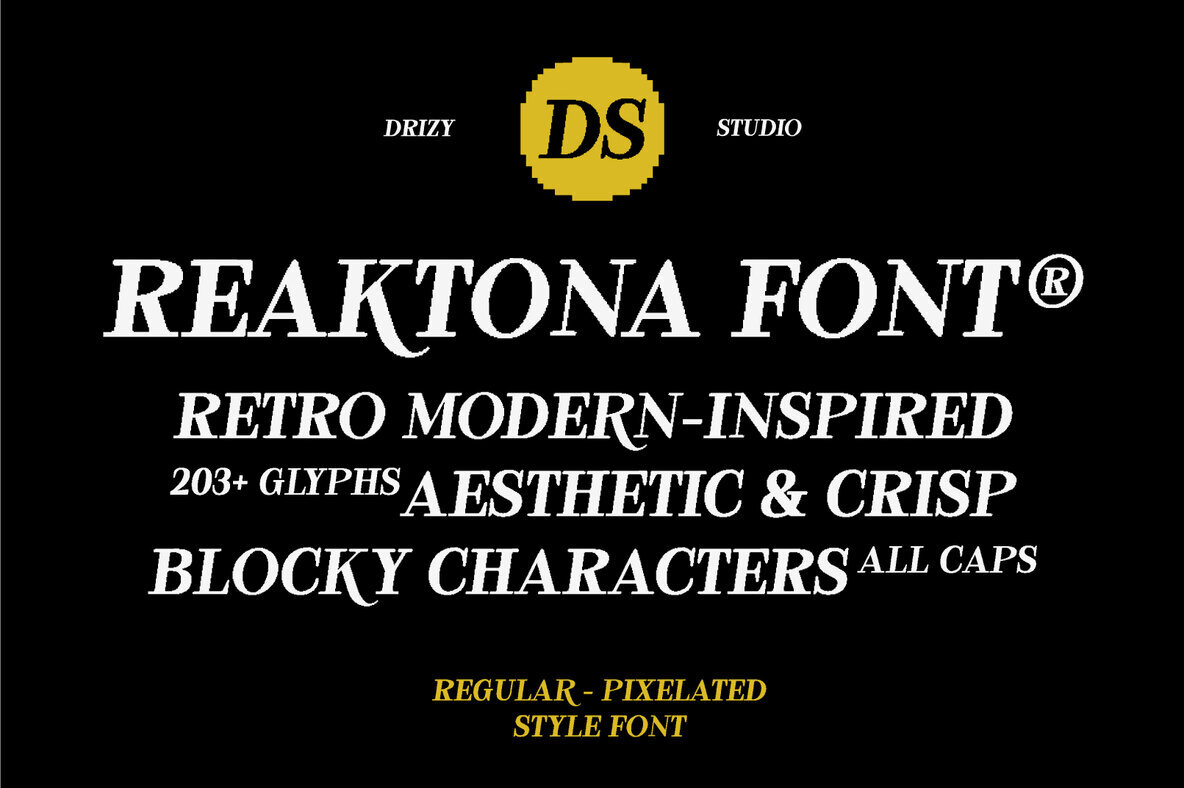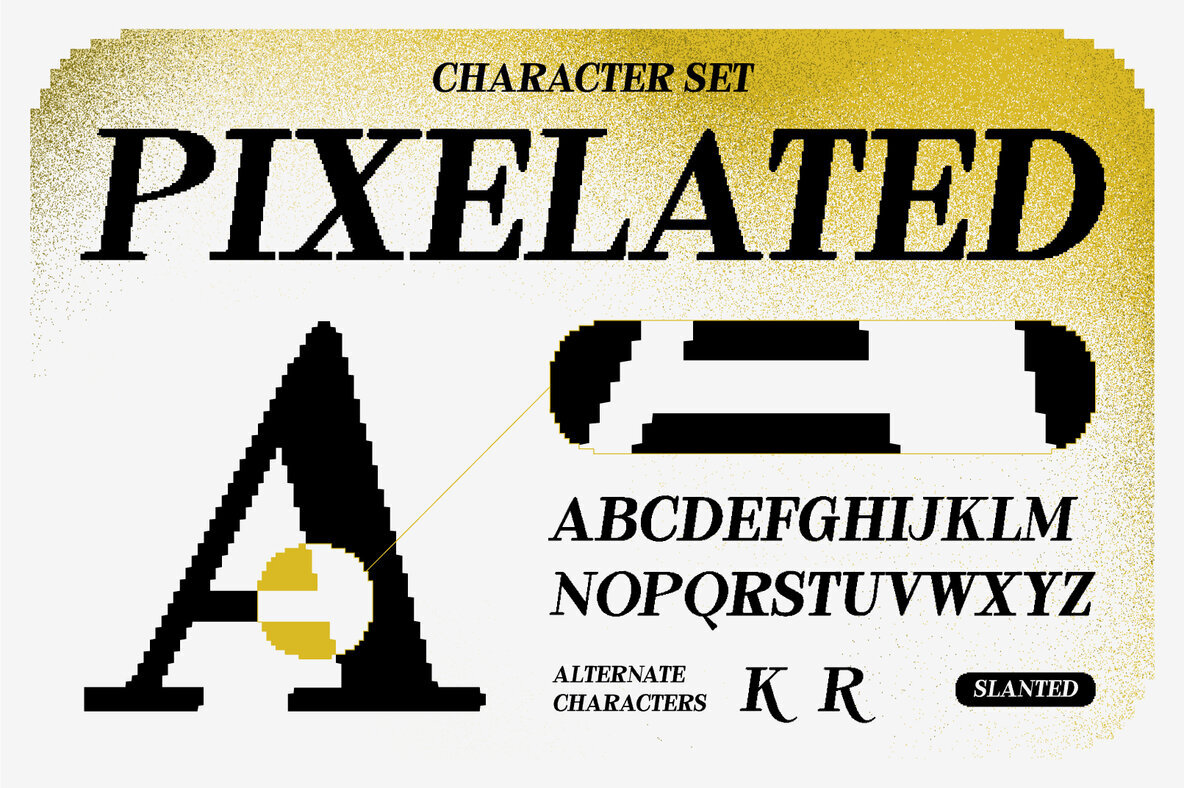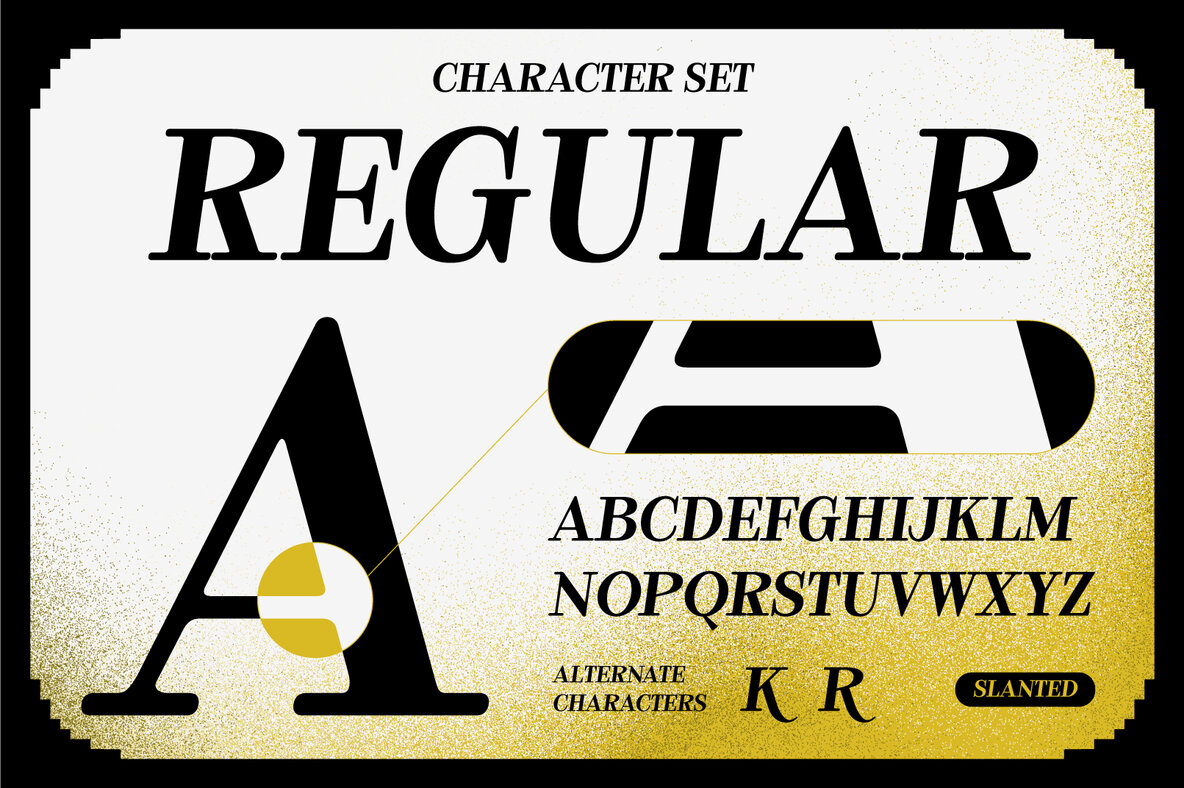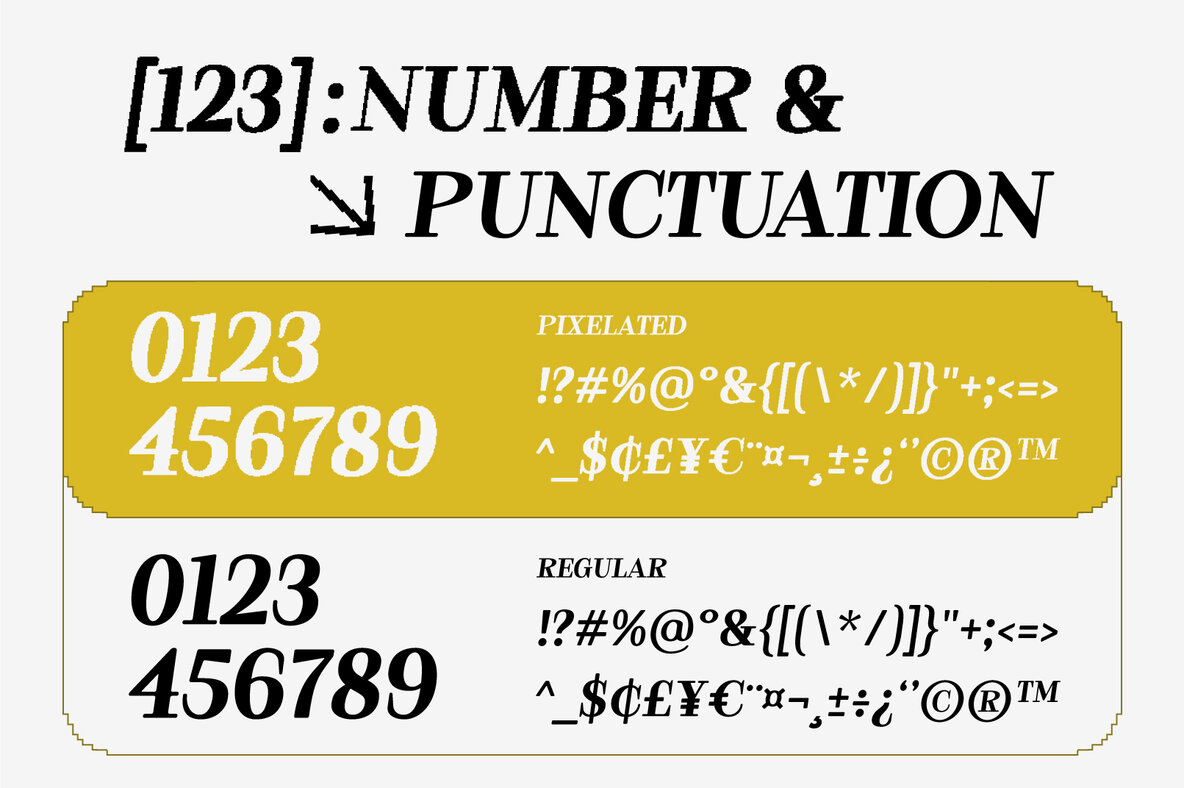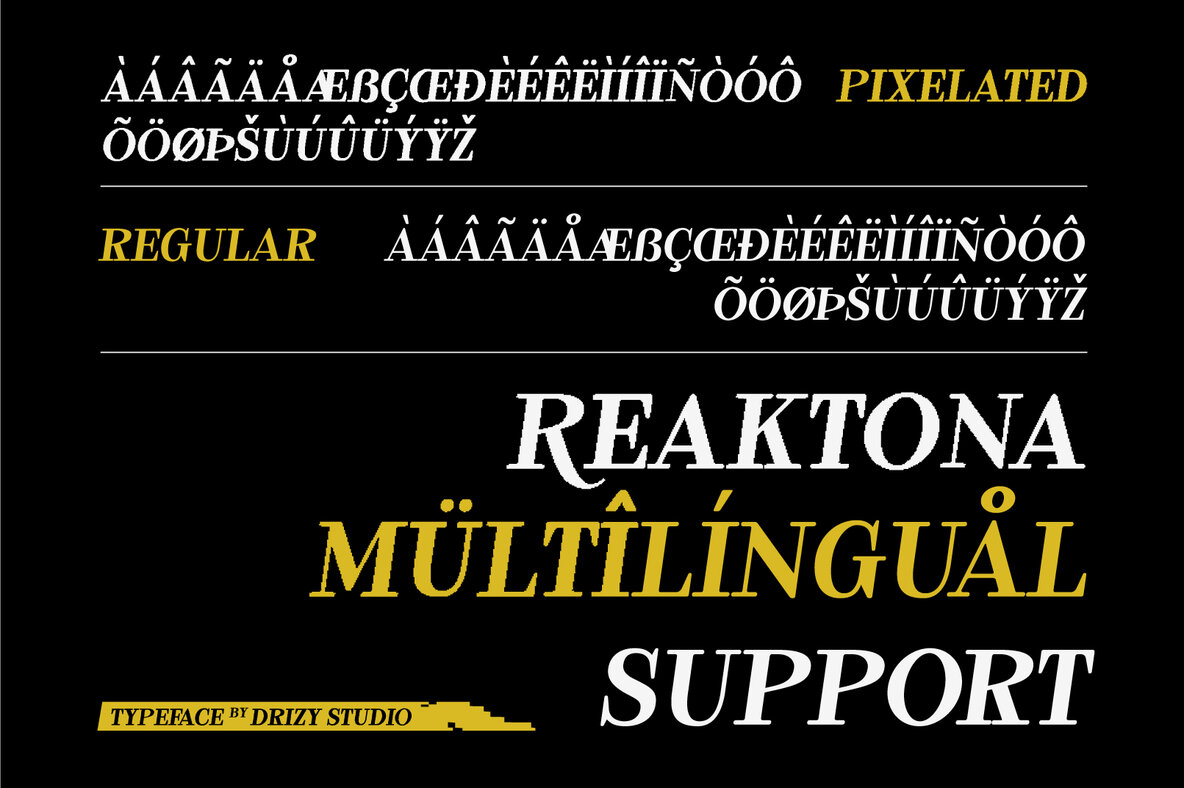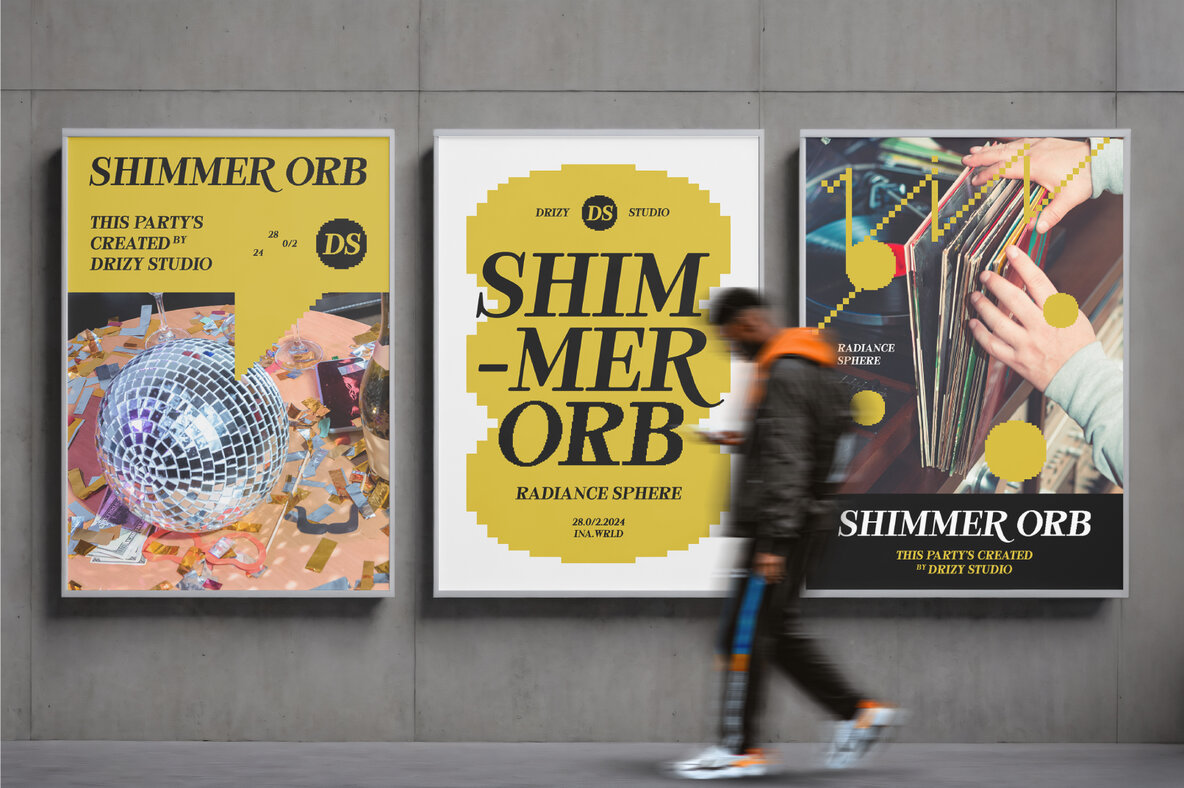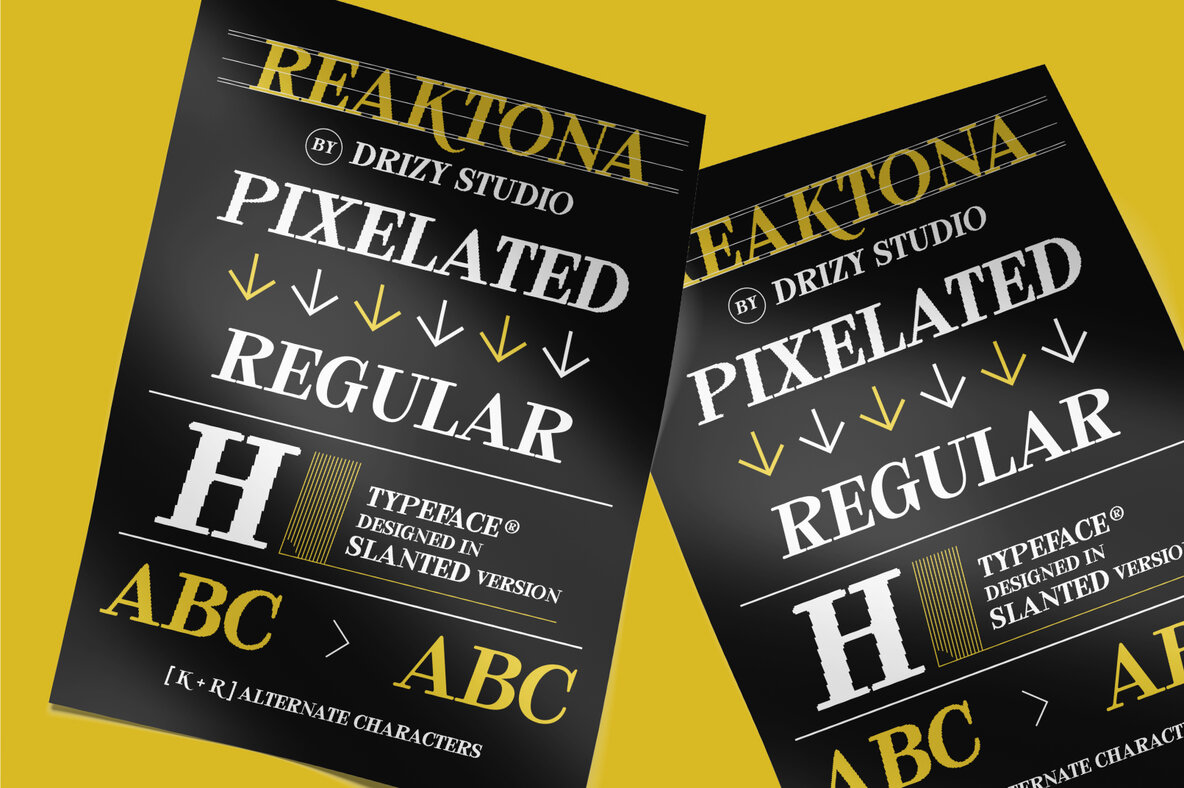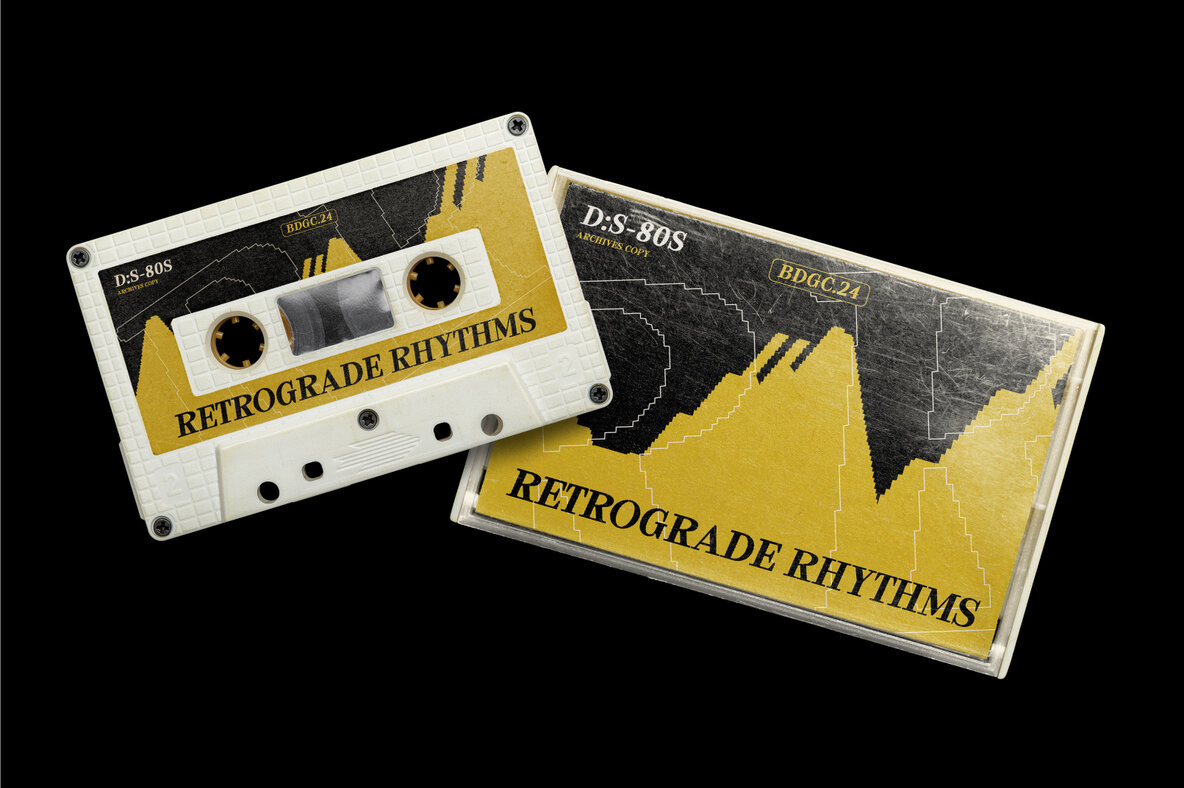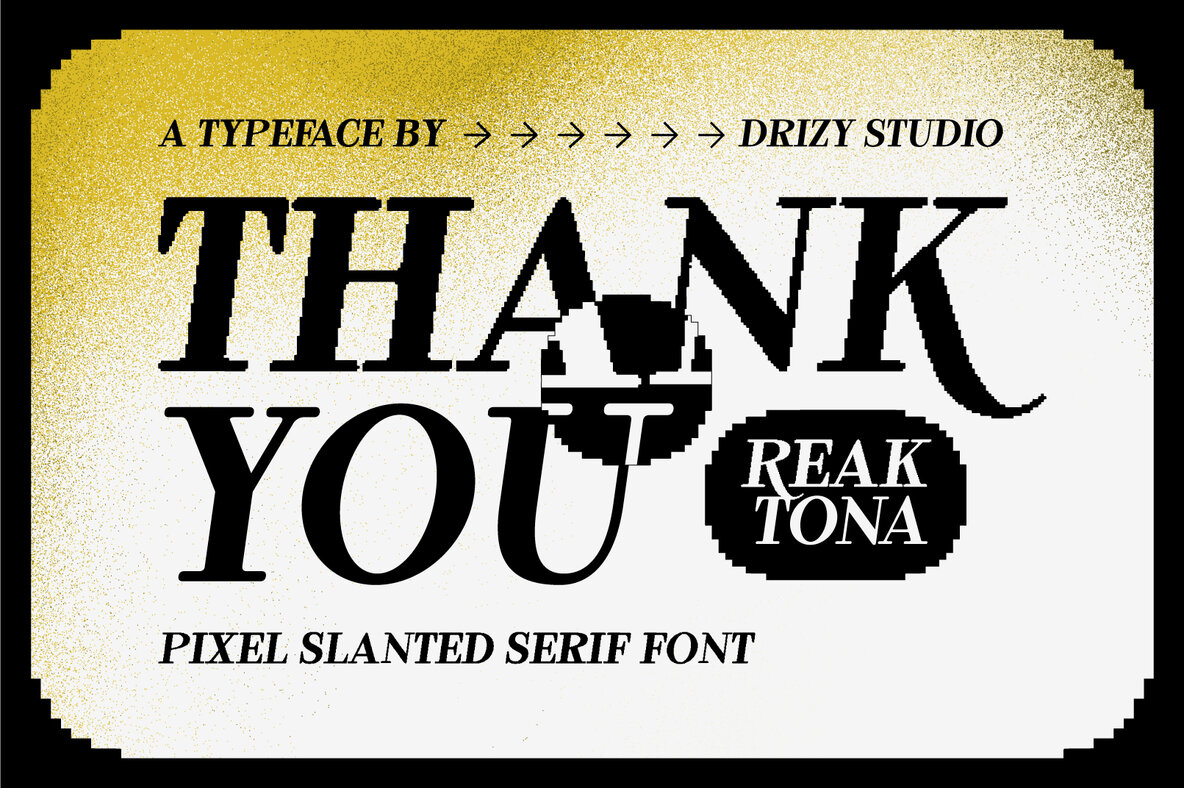
Reaktona Font
Introducing Reaktona – a striking Pixel Slanted Serif Font designed to bring a bold and dreamy aesthetic to your projects. With its unique blend of pixelated aesthetics and sleek serifs, Reaktona exudes a contemporary charm perfect for graphic design, branding, headlines, and more. Reaktona features: